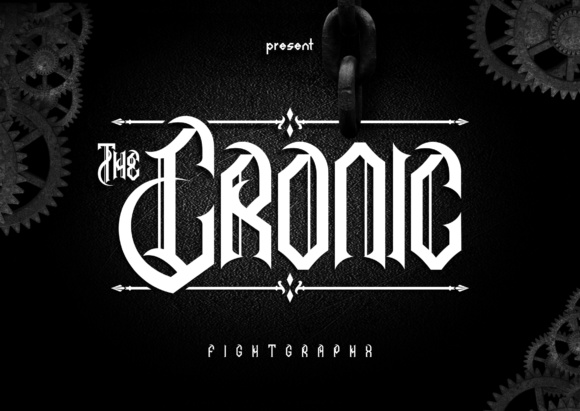
Introducing The Cronic Font, a bold and captivating blackletter typeface designed to make your designs roar with individuality. With its striking lines and distinct character, The Cronic demands attention and commands presence in any creative project.
Unleash your inner rockstar with The Cronic, the perfect font for music posters that ignite passion and energy. Its edgy aesthetic captures the essence of rhythm and rebellion, making your posters sizzle with the spirit of the music it represents.
Feel the pulse of creativity as The Cronic transforms your designs into masterpieces. Its unique letterforms, reminiscent of ancient runes, evoke a sense of timelessness and intrigue. Create logos that resonate with strength and authority, or craft eye-catching headlines that leave a lasting impression.
Dive into the world of vintage charm as The Cronic seamlessly blends the old and the new. Its classic blackletter roots provide a touch of nostalgia, while its contemporary twist keeps it fresh and relevant. Craft elegant invitations, create striking branding materials, or design retro-inspired artworks that transport viewers to a bygone era.
With The Cronic, the possibilities are endless. Let your creativity roam free as you explore its versatility. Experiment with different design styles, from the bold and rebellious to the subtly alluring. Create unique social media posts that pop off the screen, design T-shirts that make a statement, or craft website layouts that exude personality.
Don't settle for ordinary fonts that blend into the background. Embrace the power of The Cronic and watch your designs come alive with explosive energy. Its captivating presence demands attention and leaves an imprint on the minds of those who behold it.